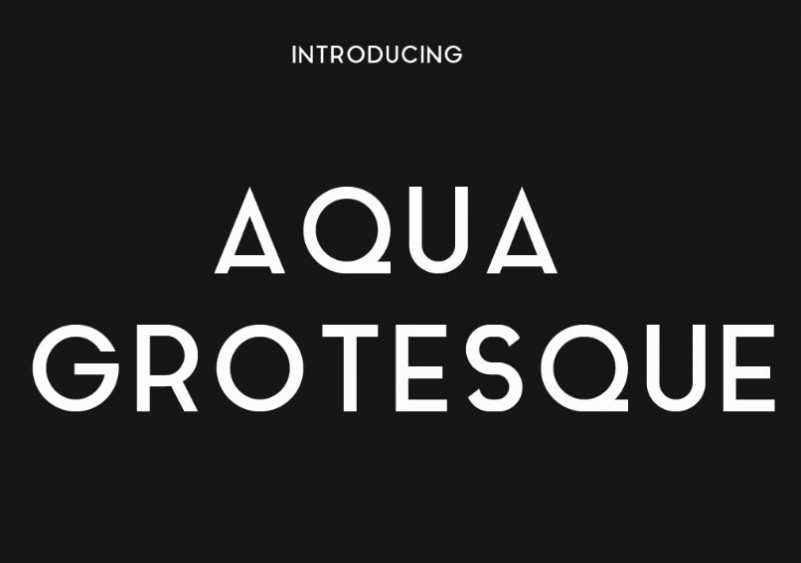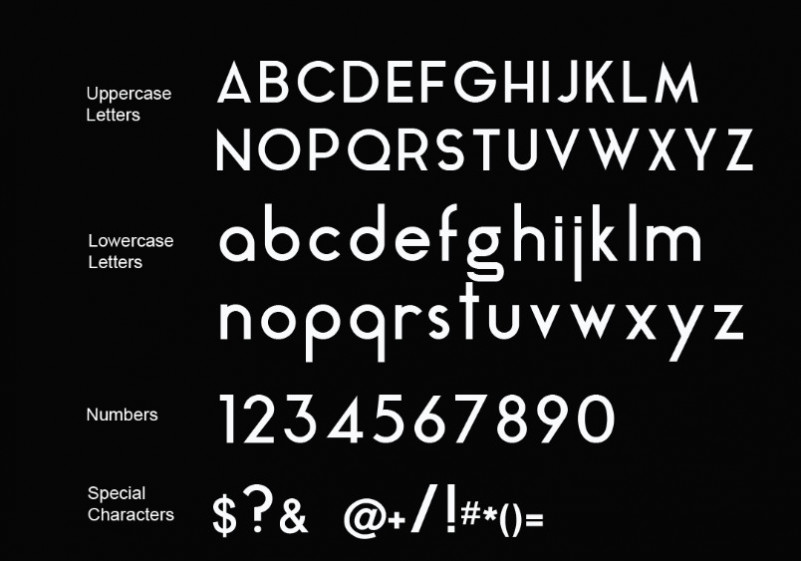
Aqua Grotesque Font
Introduction to Aqua Grotesque Sans Serif Font. A clean sans serif grotesque typeface for you, designed by Laura Pol. This font has catchy look, features uppercase, lowercase characters, special symbols, numbers, and inspired from futura typeface in 1920s.